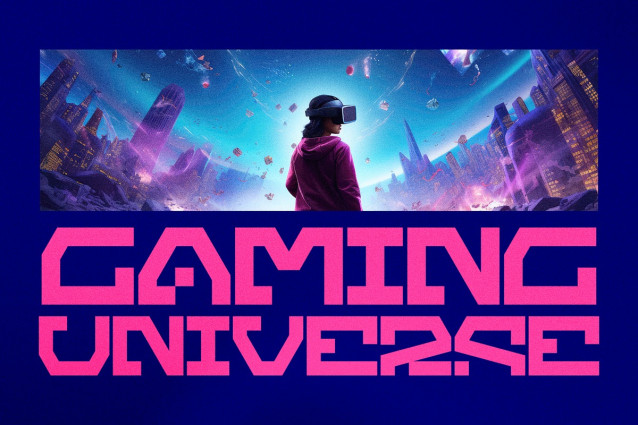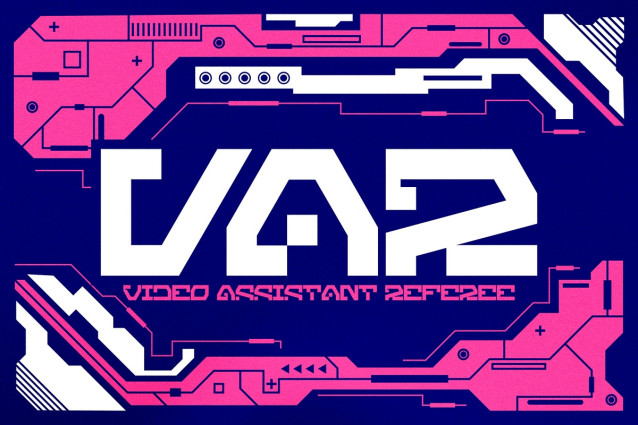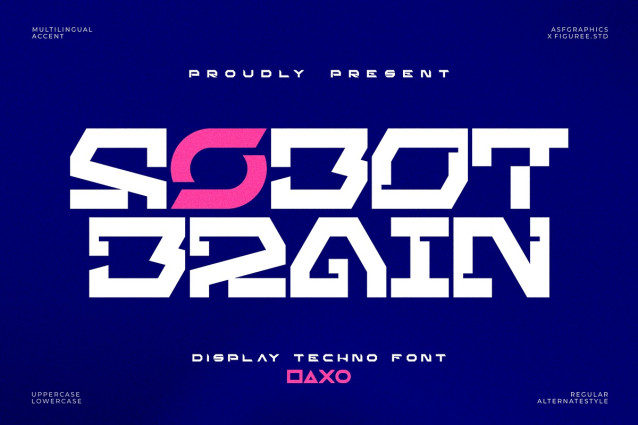
Robot Brain Font
Robot Brain Font, a display techno font engineered for the digital frontier. With a sleek fusion of futuristic aesthetics and mechanical energy, this font is ideal for projects that demand a bold, cutting-edge presence—whether it’s UI design, game titles, tech posters, or sci-fi branding.